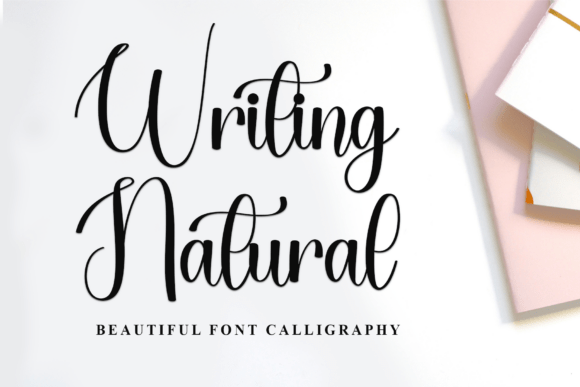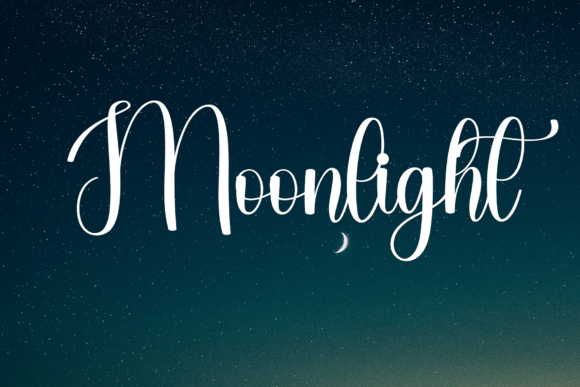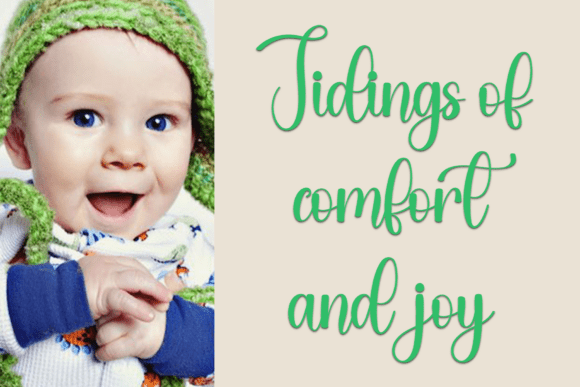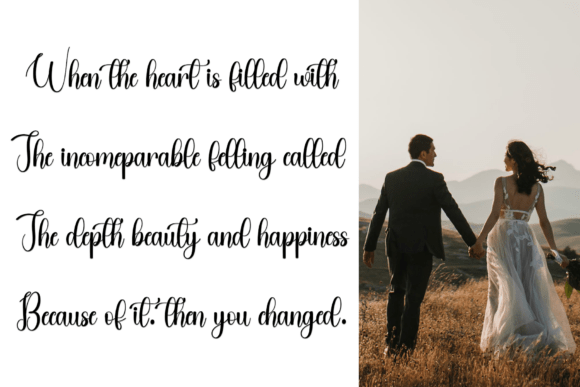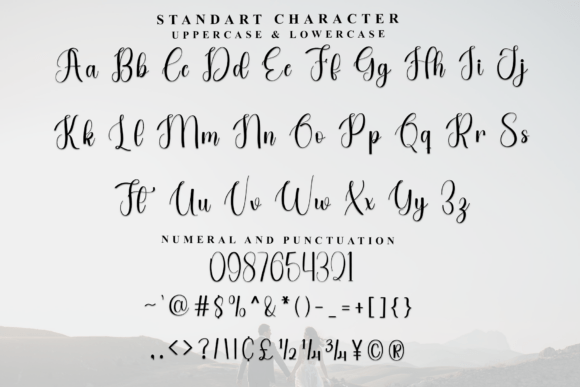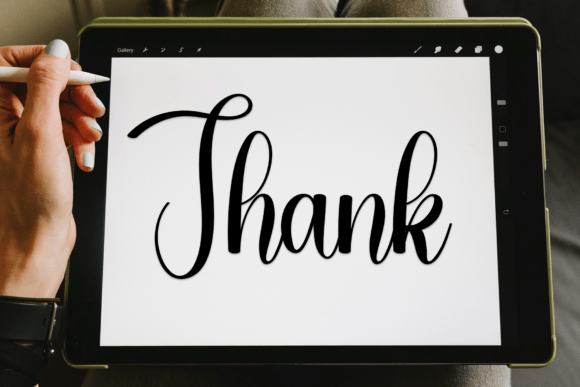
Introduction to Glowing Heart Font
Have you ever been working on a creative project, pouring your heart and soul into it, and then stumbled upon the perfect font to bring it all together? That’s exactly what happened to many designers when they discovered the Glowing Heart Font. Its unique, hand-drawn aesthetic and playful strokes made it the perfect addition to their designs, exuding warmth and friendliness that resonated with their target audience.
Key Features of Glowing Heart Font
- Unique, hand-drawn design for a creative project
Honest Review: Glowing Heart Font
I recently stumbled upon the Glowing Heart Font and was excited to give it a try. As a designer, I’m always on the lookout for high-quality design resources that can help bring my creative projects to life.
- ✨ The font has a unique and playful design that’s perfect for adding a touch of whimsy to my designs.
- Limitations:
- ⚠️ The font may not be suitable for formal or professional designs, as it has a more casual and playful feel.
Overall, I’m really impressed with the Glowing Heart Font and would definitely recommend it to fellow designers looking for a fun and creative design resource. With its high-quality design and transparent background, it’s a great addition to any design library.
For the most out of the Glowing Heart Font, use it in creative projects that require a unique and eye-catching design. This font is ideal for social media graphics, posters, and other visual content. You can also use it as a design resource for branding, logos, and marketing materials.